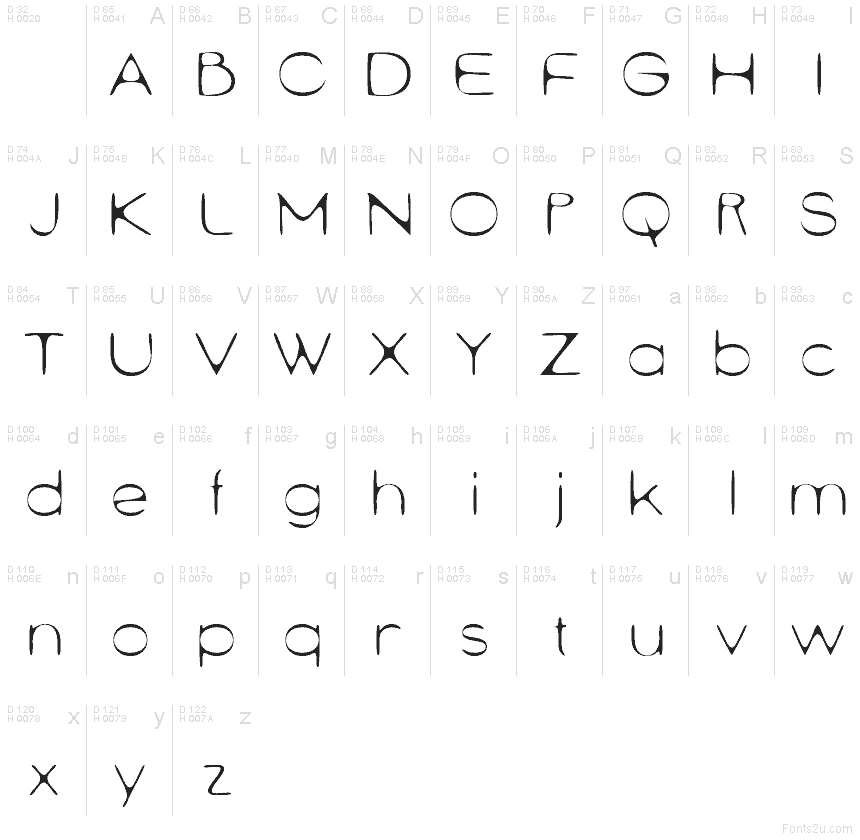
CSAustriaDrawn-Regular Demo
CS Austria Drawn font by Craft Supply Co. combines sleek and geometric features in a unique expanded display typeface. The modern minimalistic letter design offers a technology-derived feel demonstrated in the wide fluid stroke ends, round counters, and dots which are accompanied by thin square corners. The style is individual yet it has much to offer for any contemporary designing approach.